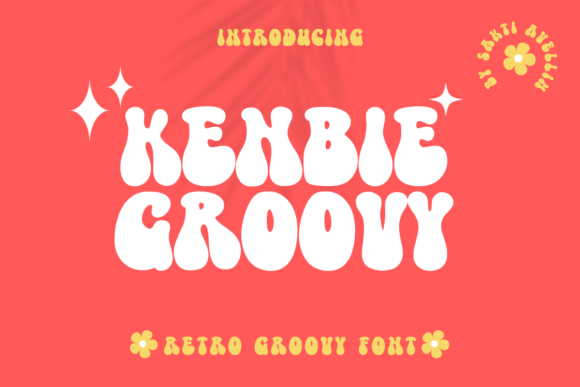
Kenbie Groovy: A Designer’s Real-World Take
First glance at Kenbie Groovy isn’t just visual—it’s tactile. You feel the bounce in the uppercase “G”, the gentle swell of the lowercase “a”, the way the terminals lift like a breath held mid-sentence. This isn’t a display font that shouts; it hums. It’s warm, slightly nostalgic—think late-’60s album art meets contemporary craft—yet entirely unforced. There’s no irony here, no wink to retro for irony’s sake. Just confident, hand-informed rhythm baked into every glyph. As a display font, Kenbie Groovy doesn’t try to be everything. It knows its lane: expressive, human-centered moments where personality matters more than neutrality.
Where It Lives—and Thrives—in Real Projects
In logo design, Kenbie Groovy works best when the brand has soul to spare: indie bakeries, ceramic studios, small-batch skincare lines, or editorial newsletters with strong voice. I’ve used it for a seasonal coffee roaster’s limited-edition bag—it anchored the whole packaging design without needing illustration. The curves felt organic next to matte kraft paper and soy-based ink. On product labels? Yes—but only for primary brand marks or flavor names (e.g., “Honey Lavender” in bold caps), never ingredient lists. Its charm collapses under functional density.
For posters and flyers, Kenbie Groovy shines at 48pt and up. At 36pt on a 24"x36" print, spacing tightens just enough to hold cohesion without crowding. Social media graphics benefit most from its energy in square or vertical formats—especially Instagram carousels where the first frame needs instant tonal clarity. I paired it with a crisp sans serif (like Inter or Poppins) for body text, and the contrast elevated both fonts. No fighting for attention—just clear hierarchy.
Website headers? Absolutely—if your site’s aesthetic leans into warmth and approachability. But skip it for navigation menus or paragraph text. Even at 28px on retina displays, letterforms soften in long lines. Blog graphics? Perfect for pull quotes or section dividers. Not for article titles unless you’re intentionally going bold and singular—like a single-word headline (“Joy”, “Root”, “True”) that lands like a stamp.
Merchandise and printable design reveal its limits quickly. On t-shirts with soft-hand screen printing, Kenbie Groovy holds up beautifully at chest-logo scale—but shrink it to tag-size or embroider it, and the subtle joins and counters blur. For Cricut projects or vinyl decals, stick to clean outlines and avoid fine interior details (like the inner curve of the “e”). It’s a creative font, yes—but not infinitely scalable.
Where Restraint Makes All the Difference
Kenbie Groovy is not a workhorse. It’s a spotlight. Use it for short phrases: brand slogans, event names, chapter titles, quote highlights, or decorative accents in editorial design. Avoid full sentences. Never use it for legal disclaimers, shipping policies, or multi-line captions. Its strength is mood—not utility.
I’ve seen designers overuse it as a “fun” alternative to system fonts in Canva templates—then wonder why engagement dips. Why? Because Kenbie Groovy asks for intention. When dropped into a generic layout without thoughtful spacing, color, or supporting type, it reads as decorative noise—not brand confidence. It builds recognition only when given room to breathe and consistency across touchpoints.
What It Does to Your Design Thinking
Working with Kenbie Groovy shifts how you approach hierarchy. You start designing *around* its personality instead of forcing content into it. That means bolder whitespace, simpler layouts, and more deliberate color choices—often muted palettes or earthy tones that let its warmth sing. It subtly raises audience trust when used authentically: people sense care in the letterforms, and that translates to perceived quality in the product or service.
But it also demands honesty. If your brand voice is clinical, data-driven, or ultra-minimalist, Kenbie Groovy will jar—not enhance. It won’t fix weak messaging. It amplifies what’s already there: warmth, craft, humanity. Used poorly, it feels like costume. Used well, it feels like signature.
Practical Notes Every Designer Should Run Before Hitting “Export”
- Test it in black and white first. Its charm isn’t reliant on color—but many miss how much contrast it loses in grayscale mockups, especially on textured backgrounds.
- Check readability below 24pt. Even in headlines, avoid using it smaller than 20pt on digital screens. At 16pt, the lowercase “c”, “e”, and “o” begin to merge visually.
- Try it on real mockups—not just desktop previews. Print a test label, hold a flyer at arm’s length, scroll a live webpage. Context changes everything.
- Compare uppercase vs. lowercase treatment. Uppercase delivers stronger impact and tighter rhythm. Lowercase feels friendlier but needs more line-height and tracking to stay legible.
- Review spacing—especially kerning pairs like “To”, “We”, and “Av”. Some versions ship with tight default spacing; loosen it by 20–40 units for print, 5–10 for web.
- Pair it deliberately. Next to a sturdy serif (like Merriweather), it gains grounded elegance. Beside a neutral sans serif (like Lato), it feels fresh and intentional. Avoid pairing with other display fonts or busy script fonts—they compete, not complement.
Kenbie Groovy won’t solve every typographic problem. But when you need a display font that carries weight without stiffness, warmth without cliché, and distinction without distraction—it earns its place. Not as decoration. As intention made visible.